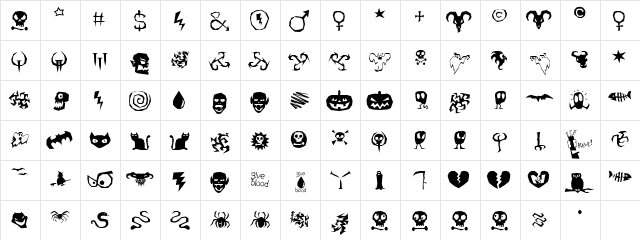
ILL oCtoBer Normal Font Preview
ILL oCtoBer Normal
ILL oCtoBer Normal Font Details
Design Context for ILL oCtoBer Typeface
ILL oCtoBer is a composed and adaptable typeface that performs quietly and consistently across a wide range of design contexts.